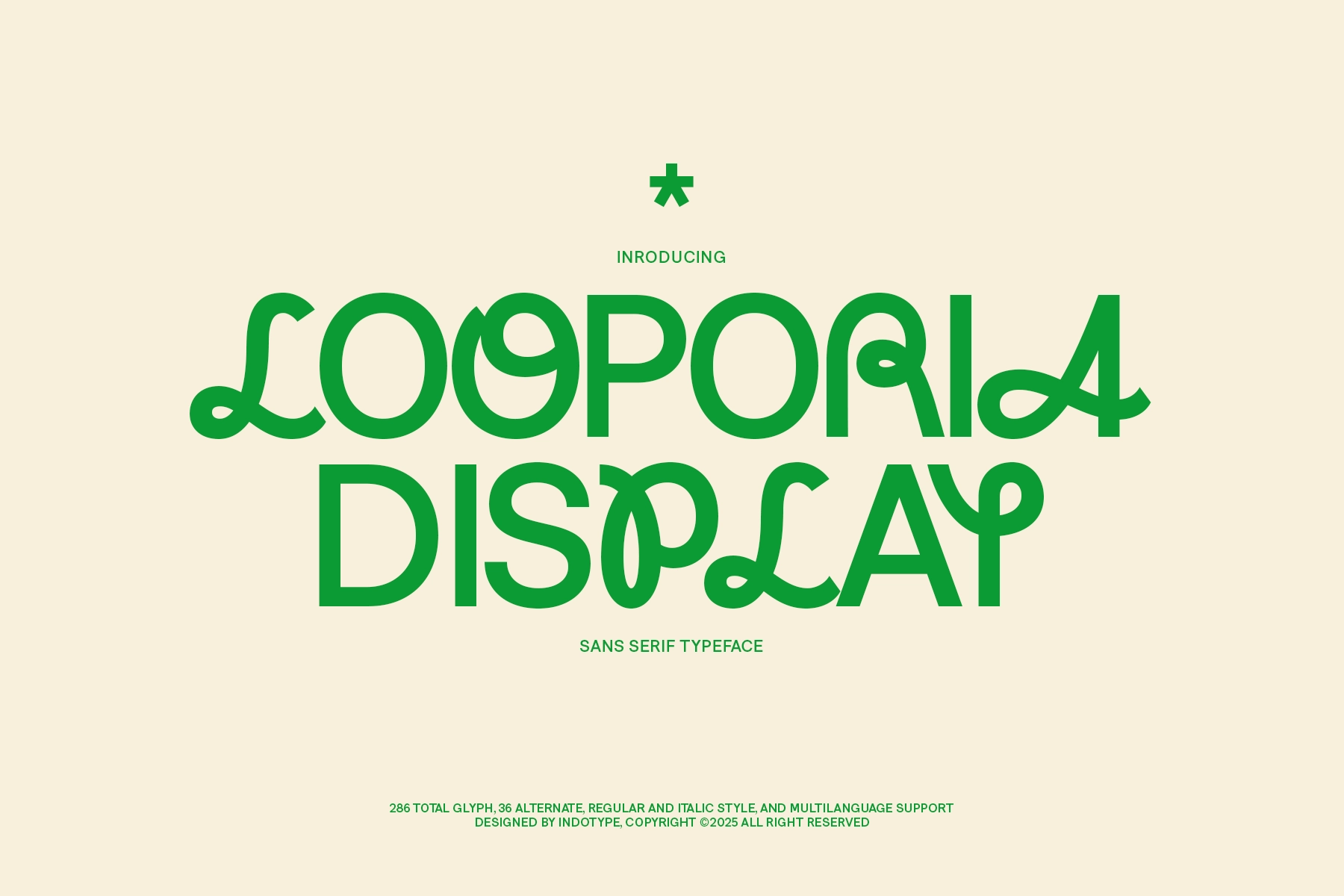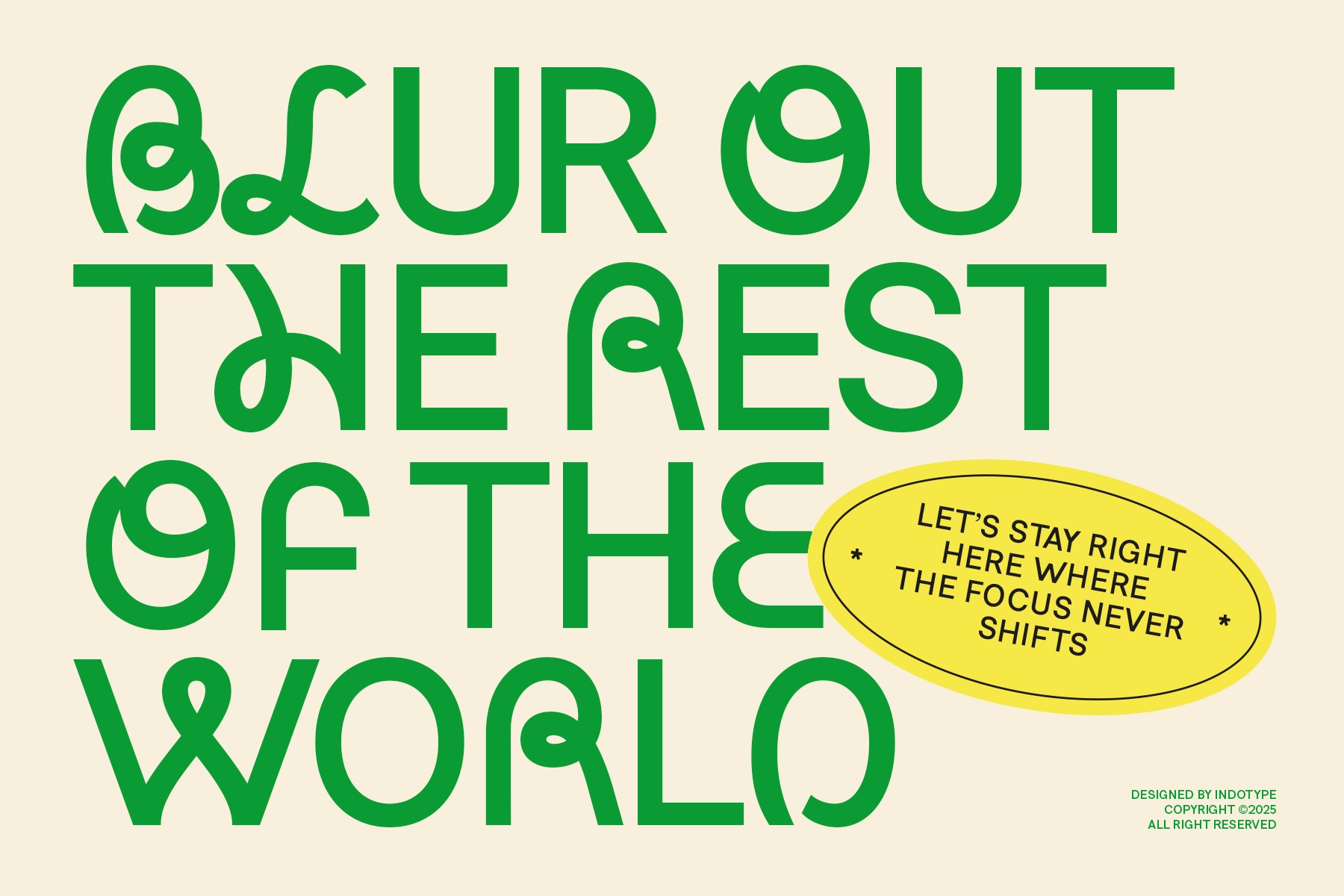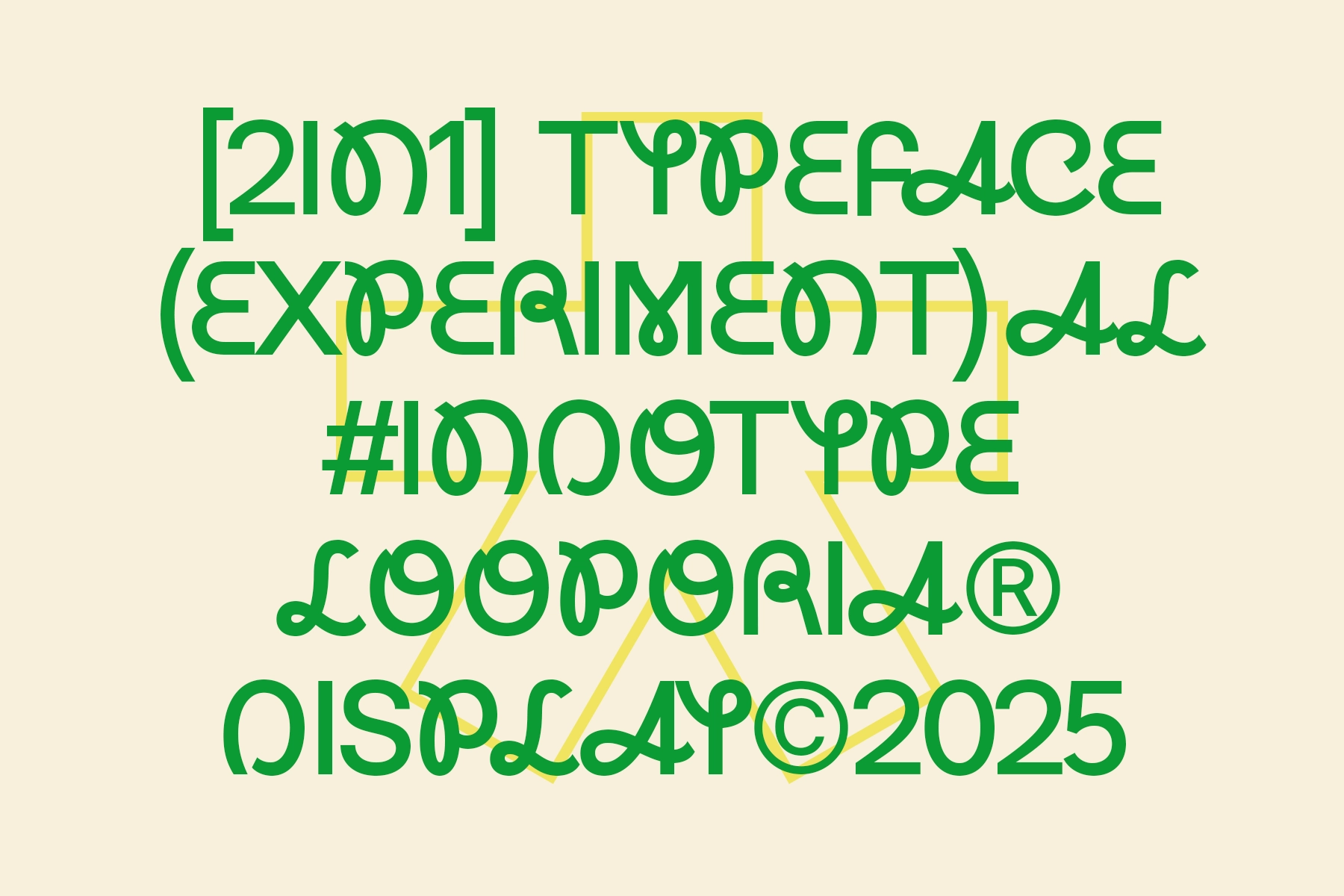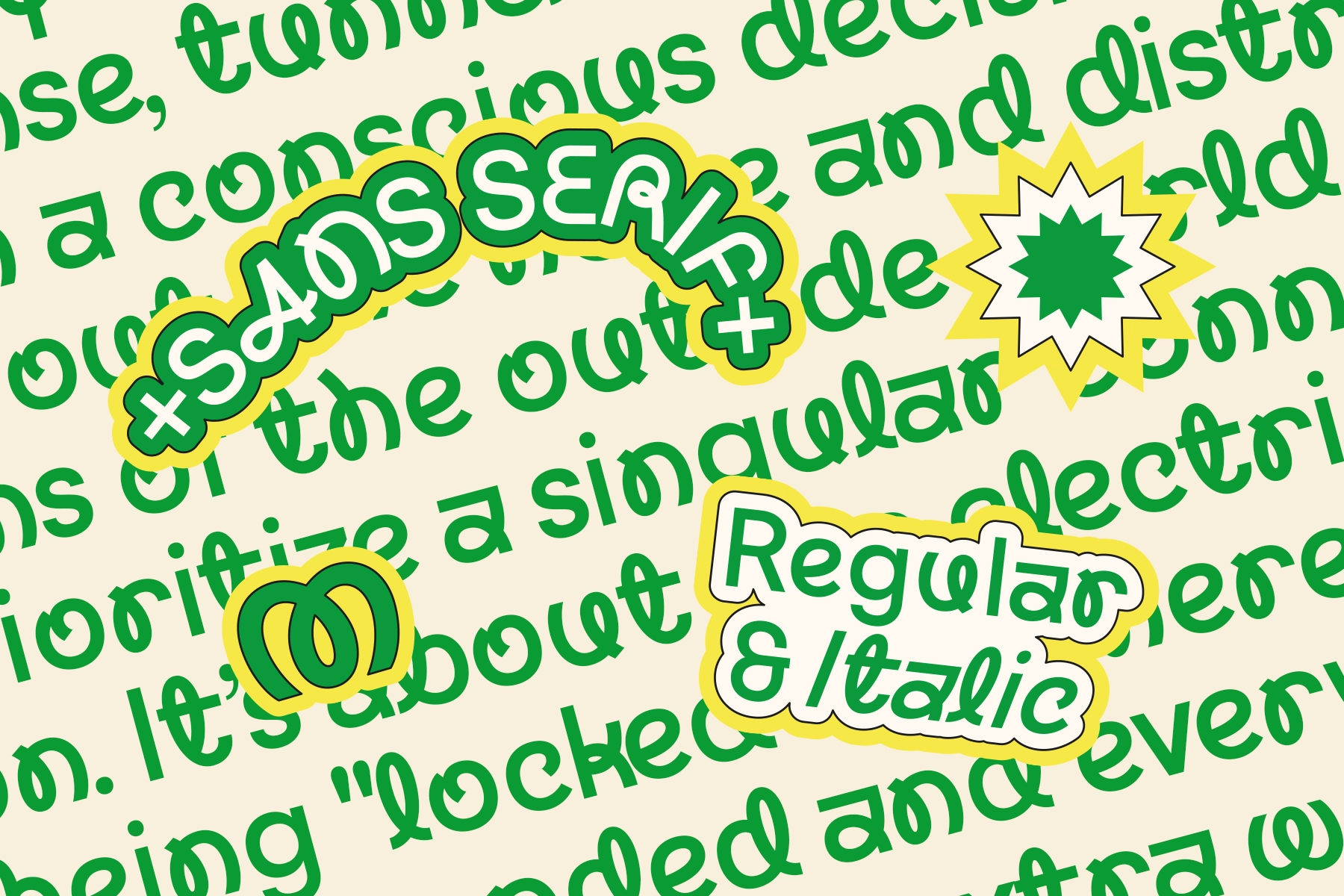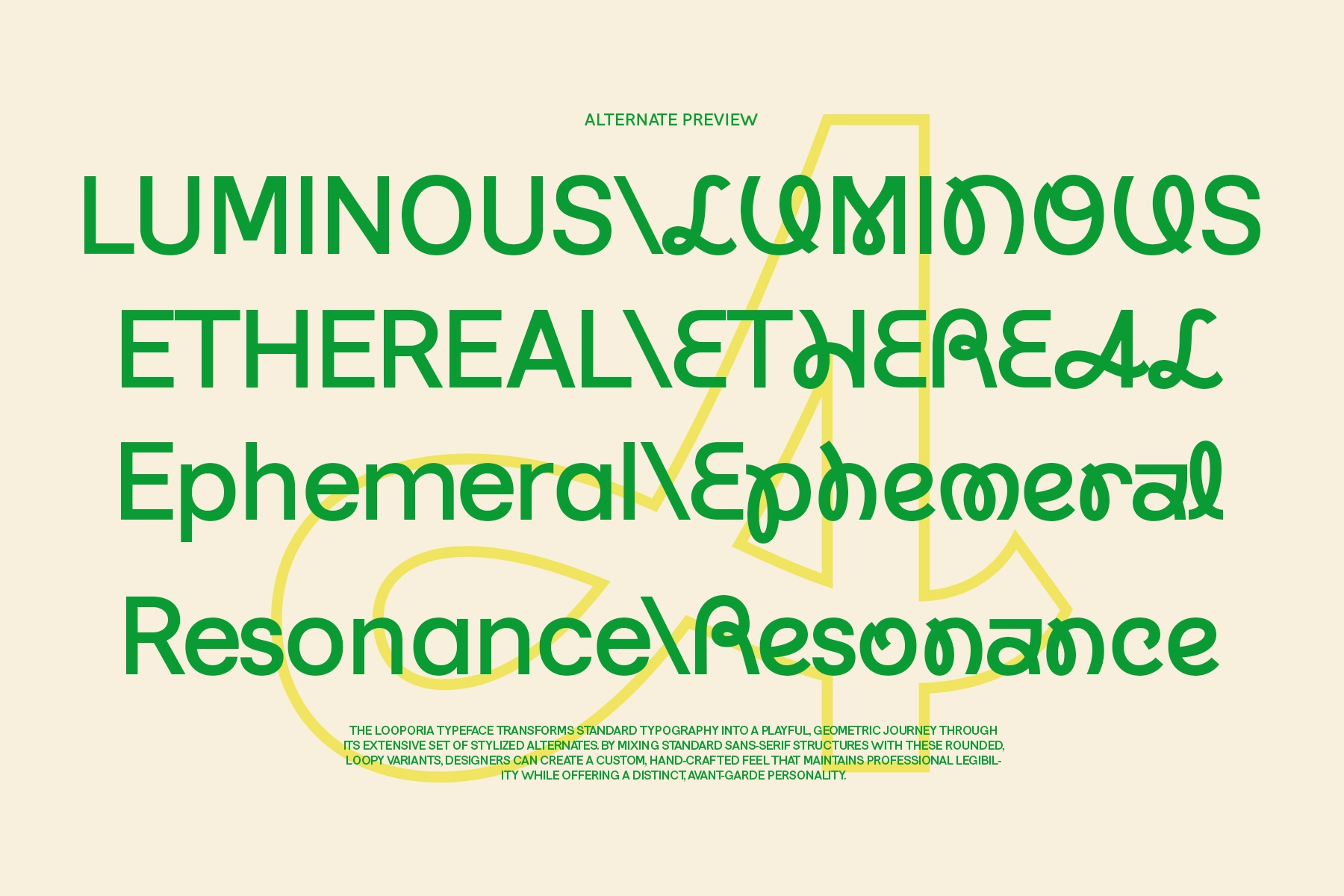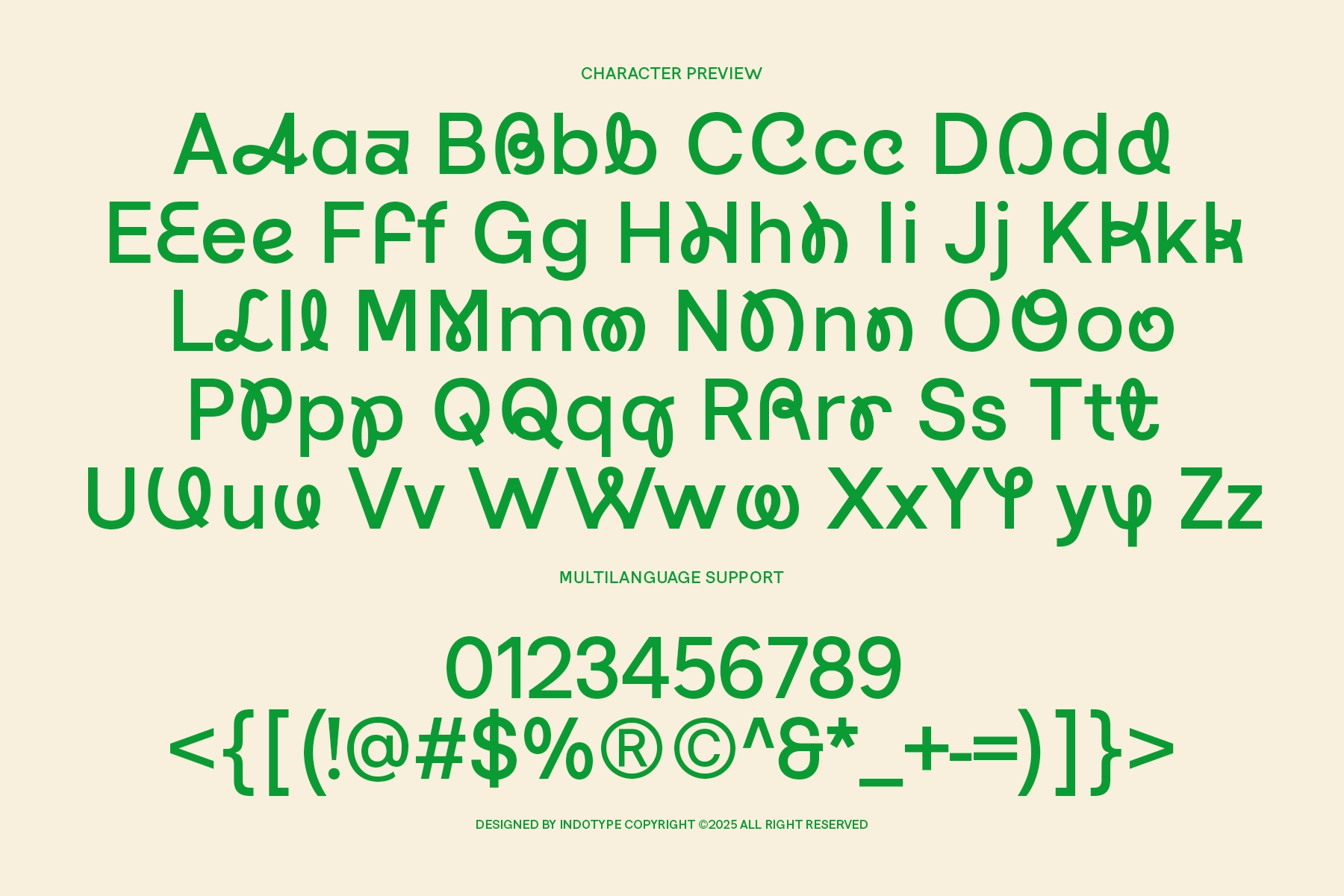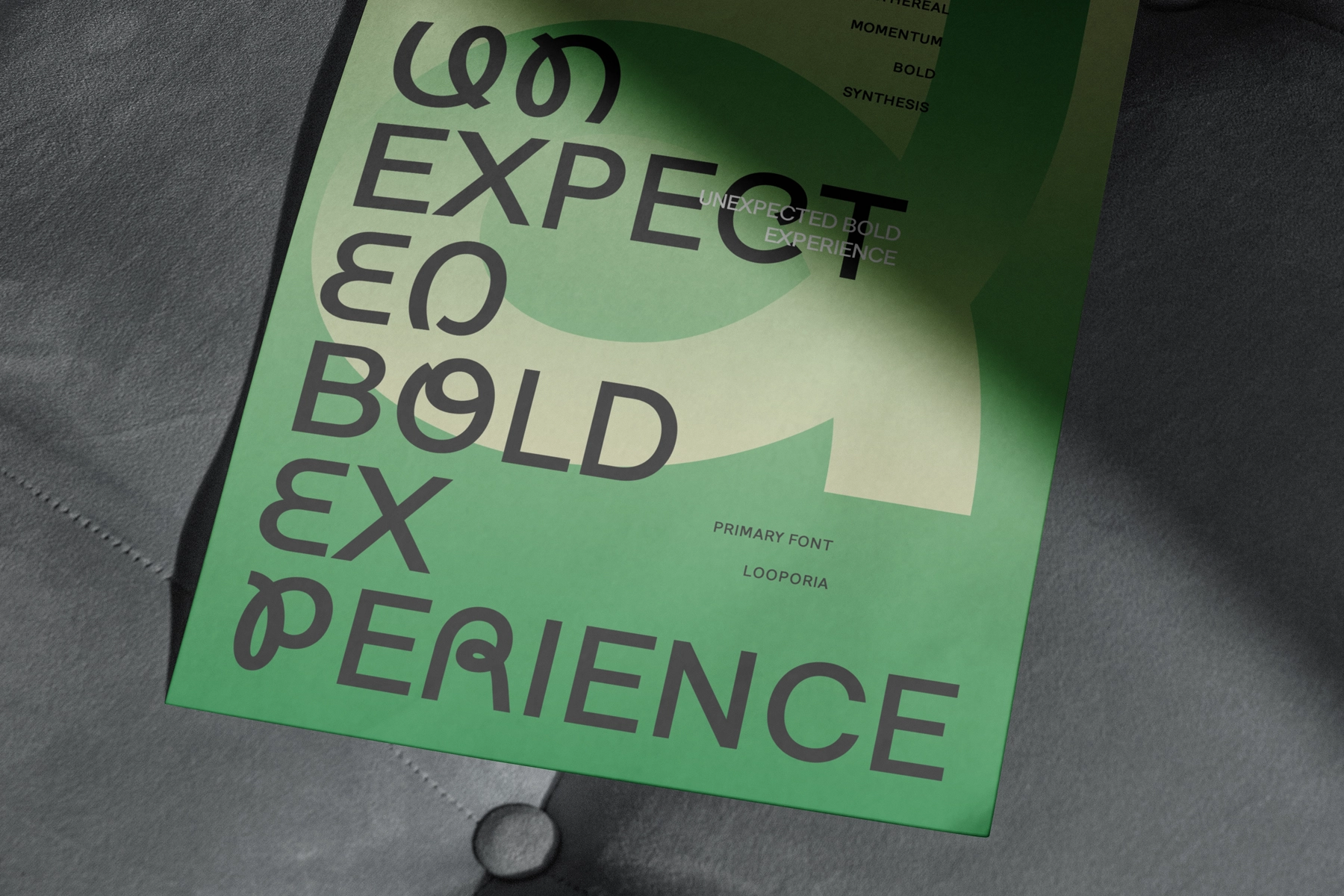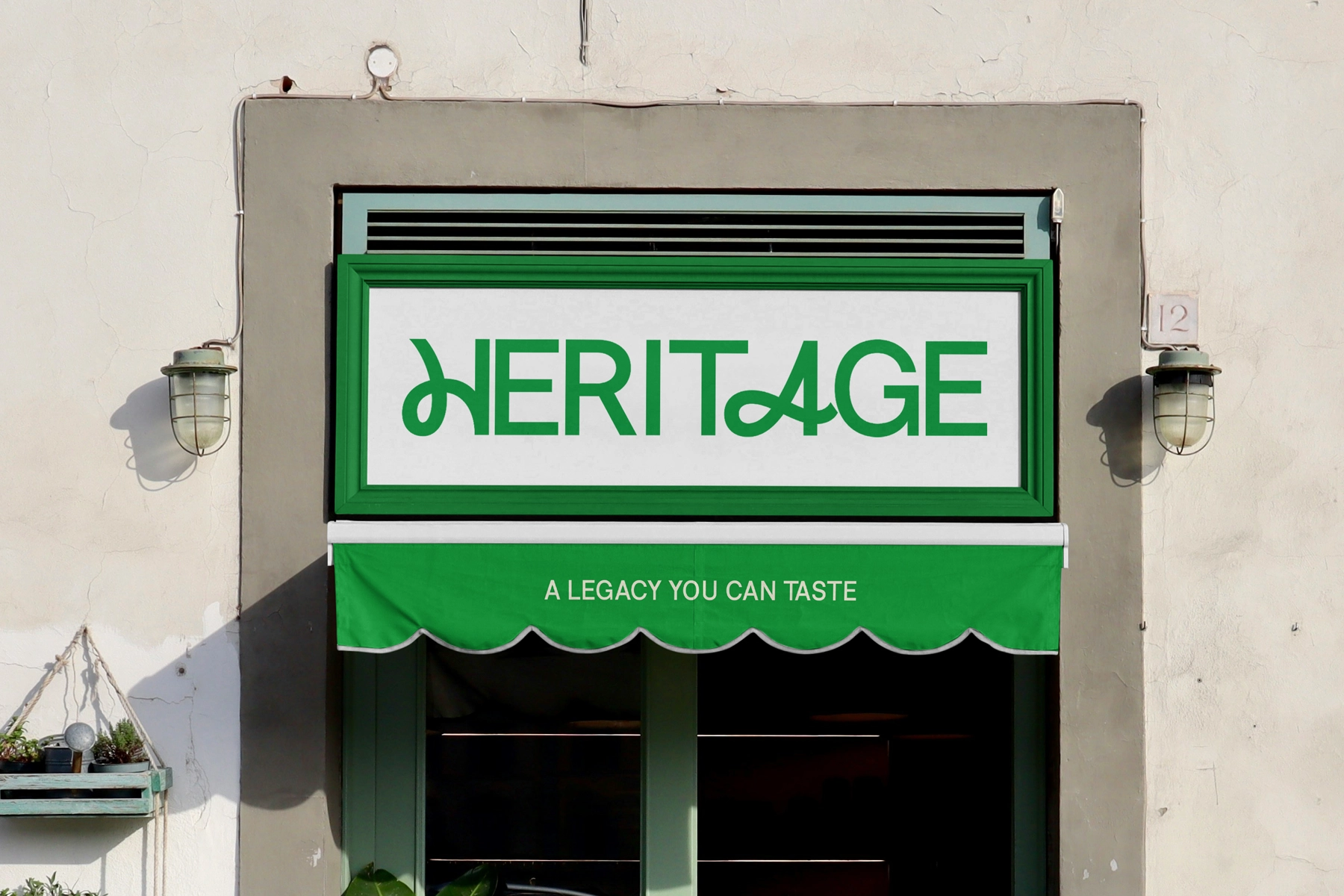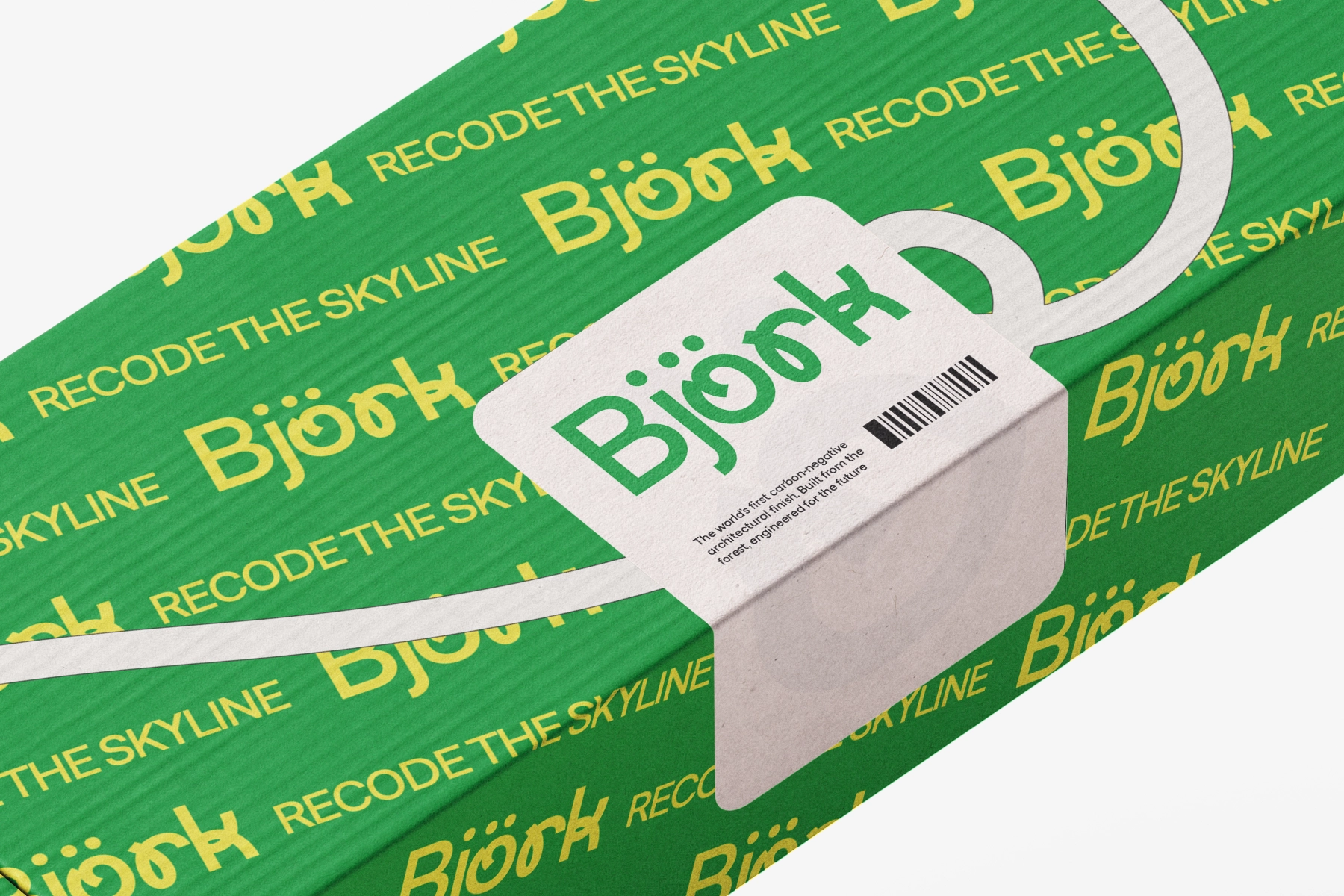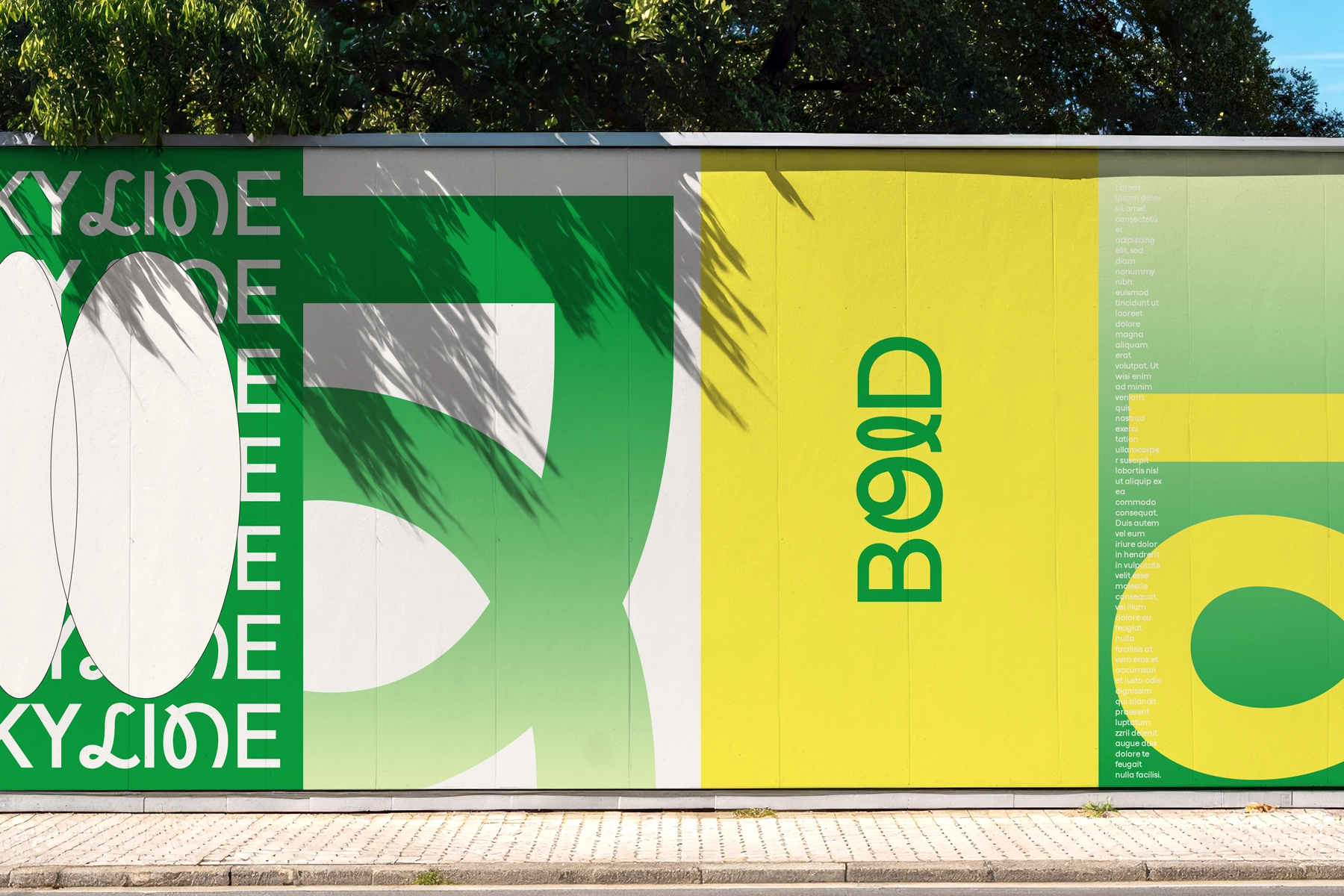
Looporia - Groovy Display Sans Serif Font
Looporia is a groovy display font with a split construction: the default glyphs run geometric and rounded, with steady stroke weight and open apertures, while the 36 alternates introduce looping terminals, curling arms, and swooping tails that push individual letters into retro-psychedelic territory. The mix gives designers control over how far the font leans — a headline in straight glyphs reads confident and structured; swap in a few alternates and the same word picks up a late-70s energy without losing legibility.
The italic adds directional momentum that works well for subheadlines, pull quotes, and mixed-case lockups alongside the regular. Use Looporia for branding with a bold, youthful personality, poster and event titles, apparel and streetwear graphics, packaging that wants personality at scale, editorial headlines, and social campaign visuals.
- 2 styles: Regular, Italic;
- uppercase & lowercase;
- numerals, punctuation & symbols;
- 36 alternates;
- 286 glyphs total;